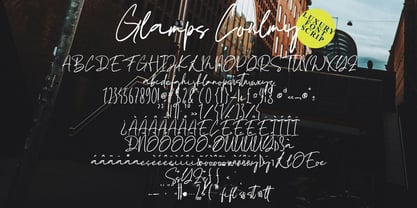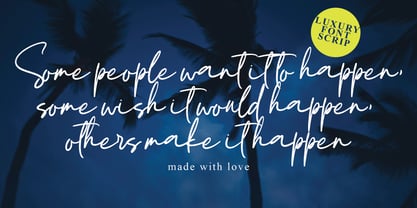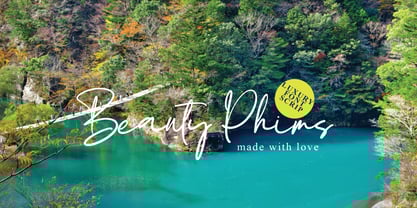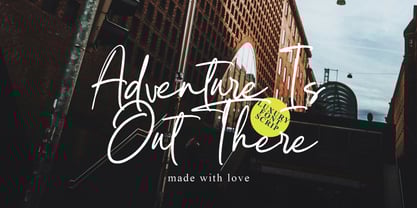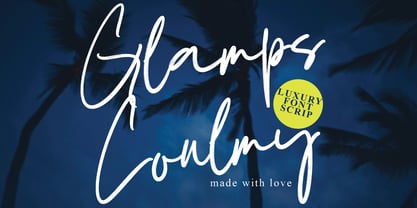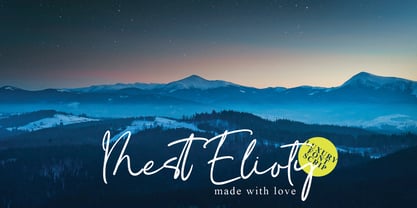
Glamps Coulmy
by Pineungtype misinklab
The Glamps Coulmy Font Family was designed by Beni Saswita and published by Pineungtype misinklab. Glamps Coulmy contains 1 styles. More about this family
Glamps Coulmy with new style, this font will perfect for many different project ex: quotes, logo, blog header, poster, banding, letter, invitation, stationery, etc...
Featured :
• Accents (Multilingual characters)
• Numerals and Punctuation (OpenType Standard)
Designers: Beni Saswita
Foundry: Pineungtype misinklab